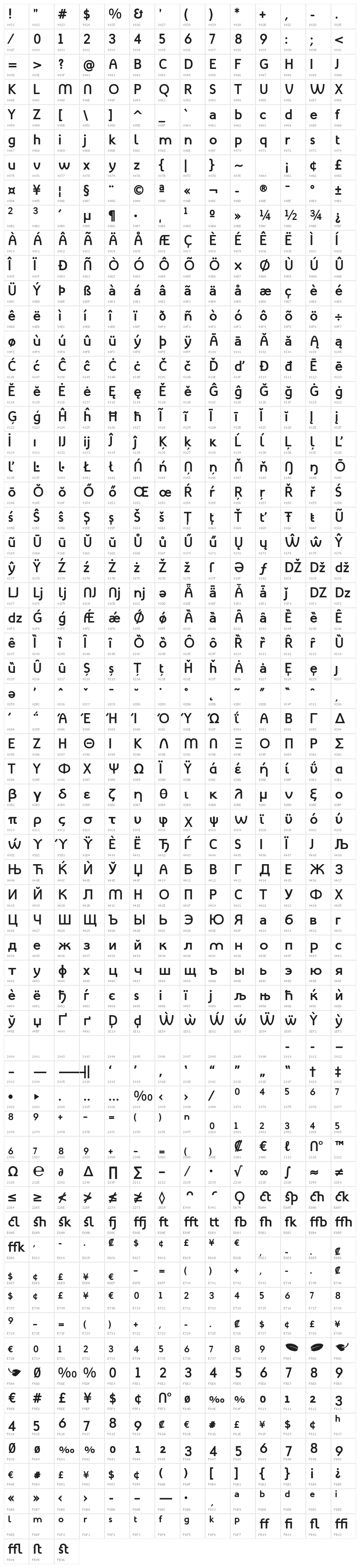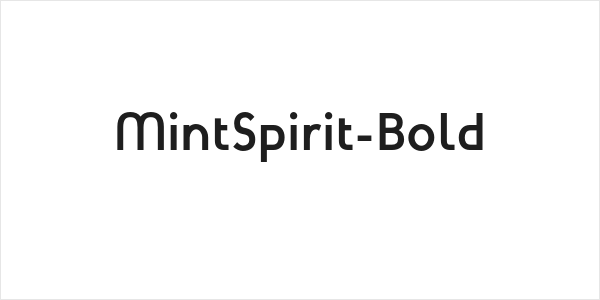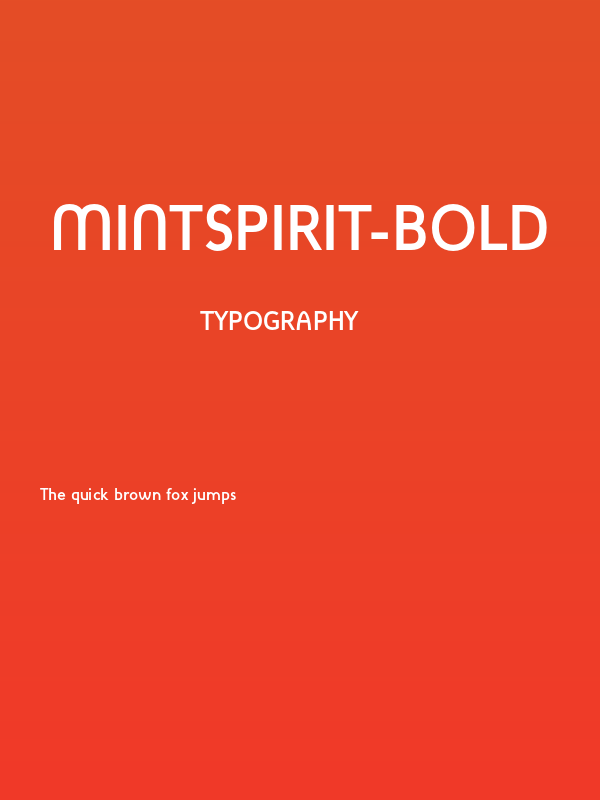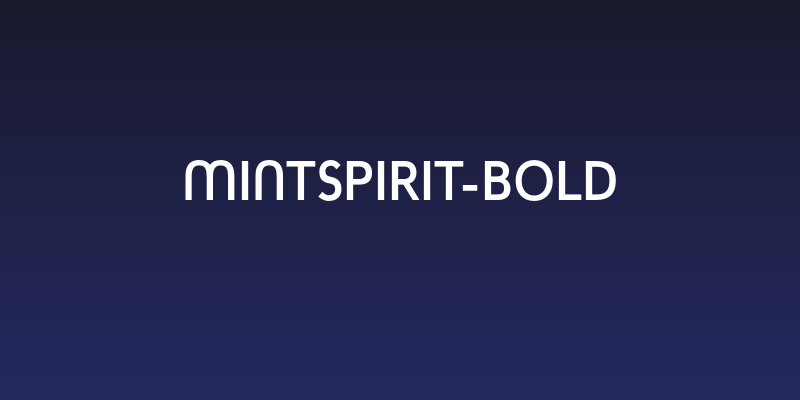
MintSpirit-Bold Font
MintSpirit-Bold Description
This font features a clean and modern sans-serif style with a bold weight, making it highly legible and impactful. The characters are well-proportioned with a slight geometric influence, evident in the rounded edges and consistent stroke widths. The uppercase letters are slightly taller than the lowercase, providing a balanced and harmonious appearance. The numerals are clear and distinct, ensuring readability in various contexts. Special characters are designed with the same attention to detail, maintaining uniformity across the set. This font's boldness and clarity make it suitable for a wide range of applications.
| Use Case | Headlines, Logos, Digital Interfaces |
| Proposed Projects | Ideal for branding, advertising, headlines, and digital interfaces where clarity and impact are essential. |